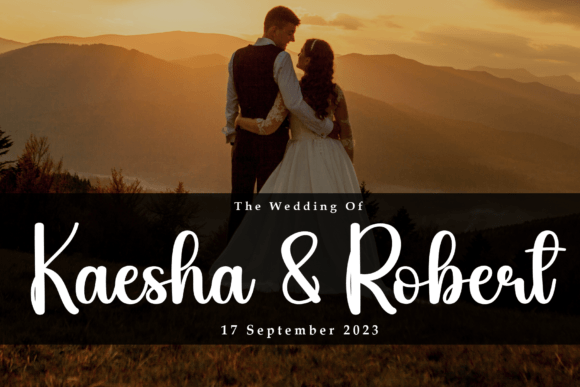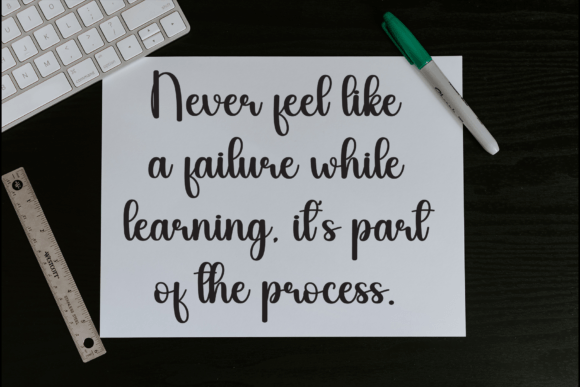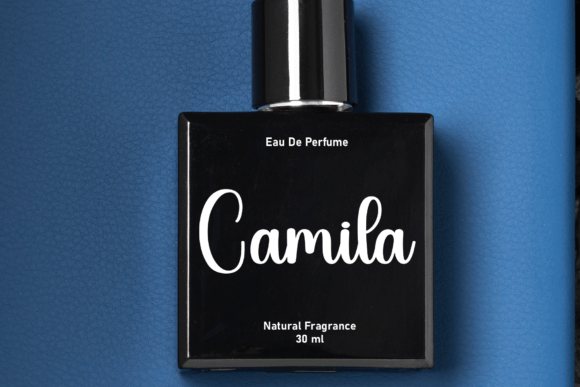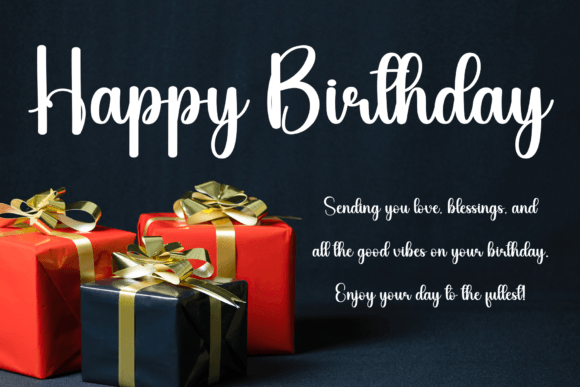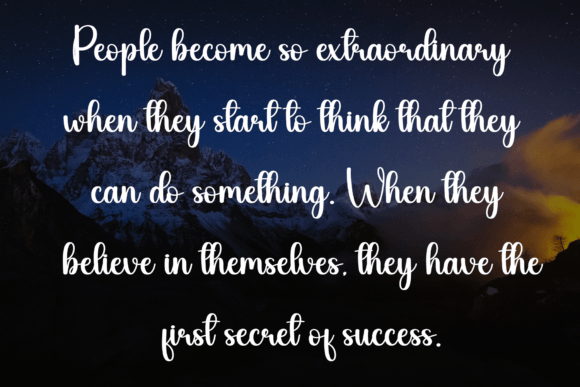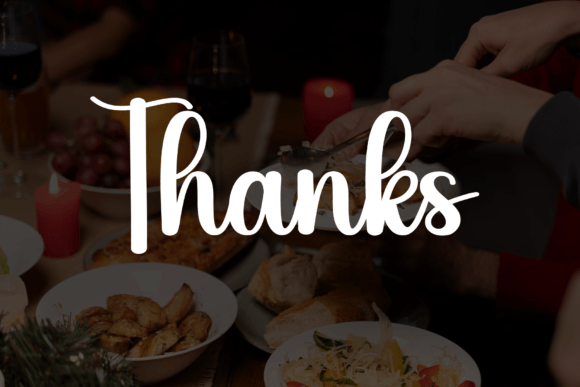
Introduction to Christmas Dinner Font
As you’re planning your holiday cards and decorations, have you ever thought about the perfect font to add that extra touch of festive cheer? For me, it’s all about the little details that make a design truly special. And that’s where the Christmas Dinner Font comes in – a sweet and friendly handwritten display font that’s sure to bring a smile to your face.
With its cute and fun vibe, the Christmas Dinner Font is perfect for adding a playful touch to your designs. Whether you’re writing wedding invitations, creating holiday cards, or working on any other project that needs a dash of whimsy, this font is sure to be a valuable addition to your design resource library.
Key Features of Christmas Dinner Font
- High-quality design: The Christmas Dinner Font features a high-quality design with intricate details, perfect for adding a touch of elegance to your project.
- Large character set: The font includes a large character set, covering a wide range of languages and characters.
- Perfect for creative projects: The Christmas Dinner Font is ideal for use in creative projects, such as invitations, posters, and social media graphics.
Honest Review: Christmas Dinner Font
I recently stumbled upon the Christmas Dinner Font, and I must say it’s a delightful addition to any design project. The font’s whimsical design and playful feel make it perfect for creative projects, such as invitations, social media graphics, or even holiday-themed websites.
- High-quality design that’s both festive and elegant
- Transparent background, making it easy to layer with other design elements
- The font is limited to a single style, which might not be suitable for projects requiring multiple font styles
- The design, while festive, might not be suitable for more formal or corporate projects
Overall, I’m impressed with the Christmas Dinner Font. It’s a great design resource for anyone looking to add a touch of holiday cheer to their creative project. While it has some limitations, its high quality and free download make it a valuable addition to any designer’s toolkit.
The Christmas Dinner Font is ideal for holiday-themed designs, including: holiday cards, invitations, social media graphics, and presentations. It’s also great for use in creative projects, such as graphic design, digital art, and scrapbooking.
For the best results, use the Christmas Dinner Font on a transparent background to create a clean and modern design. You can also experiment with different font sizes and styles to add depth and interest to your design.